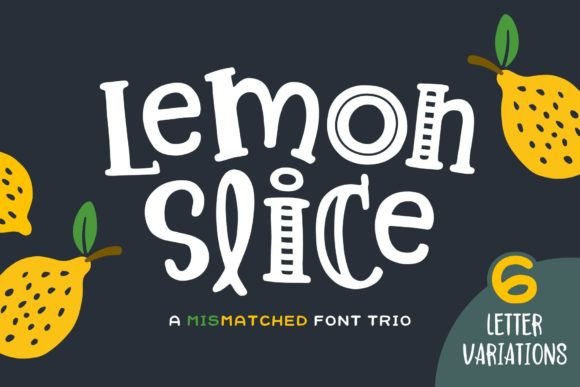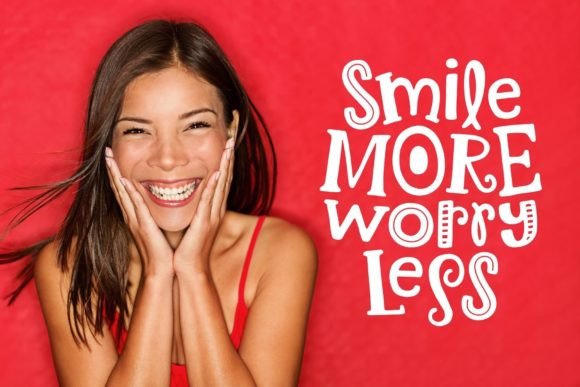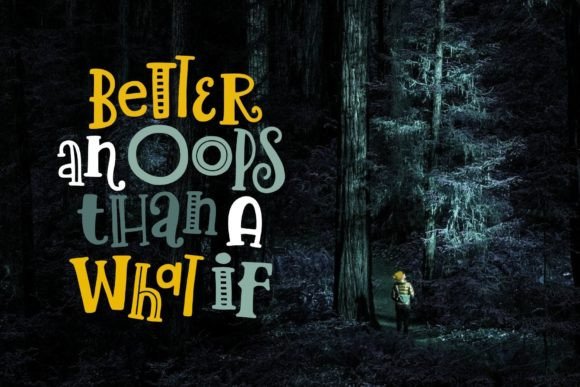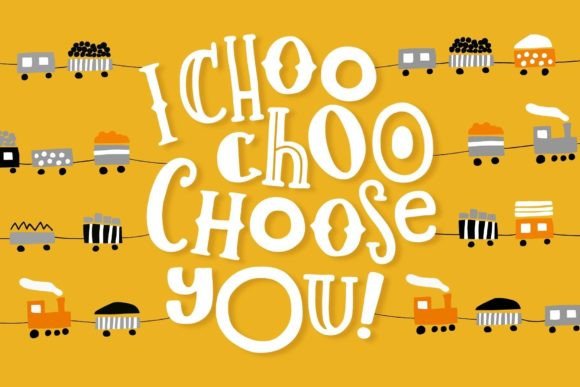
Lemon Slice Font
About the Lemon Slice Font
From logos to headlines, the Lemon Slice Font is the perfect choice for making a lasting impression. Lemon Slice is an adorably mismatched display font with three styles. Cursive, slab, inline, sans, serifs, stripes, bold, thin, curly – all present and accounted for. With 6 variations of each letter, you’ll have no problem coming up with a design that is unique and creative.
Lemon Slice’s eclectic nature makes it ideal for headlines, short impactful taglines, logos, and playful branding projects. Its versatility shines in packaging design, posters, and social media graphics where its unique character can grab attention. However, its highly decorative styles are unsuitable for body text or UI elements; the inconsistent letterforms would hinder readability in continuous text.
The font’s personality is undeniably playful and quirky, yet retains a friendly approachability. This makes it a great choice for brands targeting a younger demographic or those wishing to convey a sense of fun and creativity.
Pairing Lemon Slice effectively requires a contrasting but complementary typeface. Consider a clean sans-serif like Helvetica Neue for a balanced contrast, or a classic serif like Garamond for a more sophisticated feel. A simple geometric sans-serif could also provide a strong counterpoint to its whimsical forms.
Lemon Slice Font Usage Examples
Lemon Slice Font Example